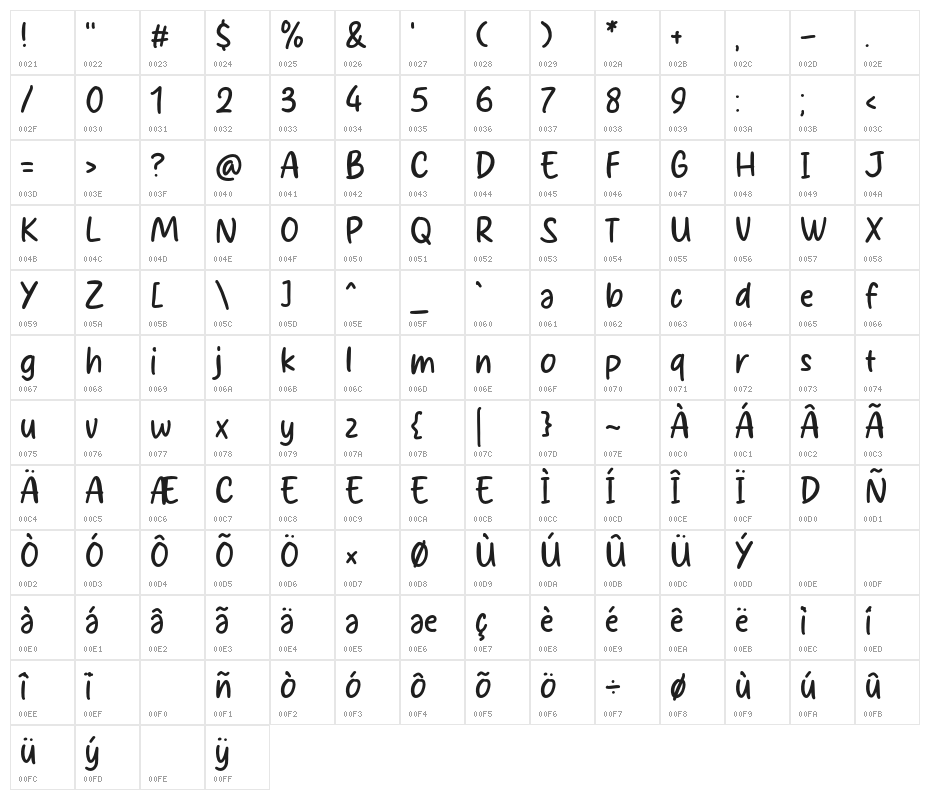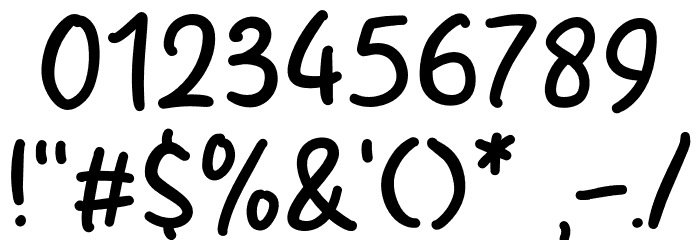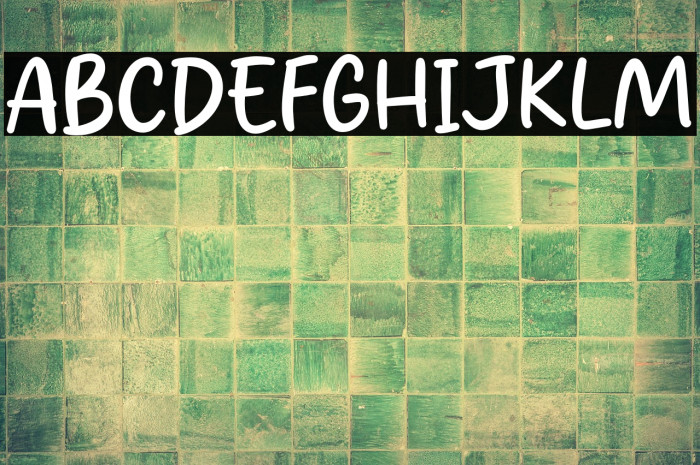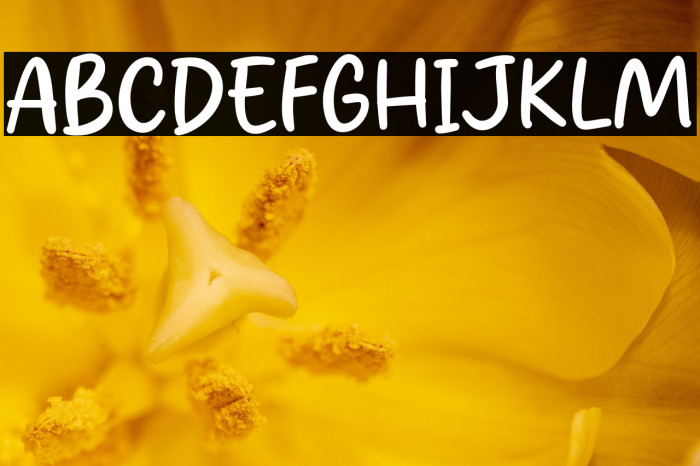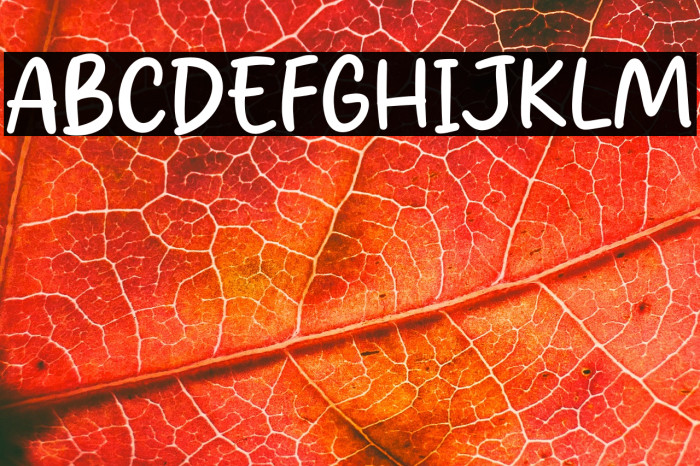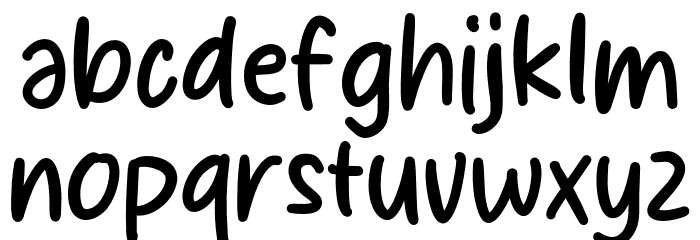
Berry Pearl Font
Berry Pearl Description
This playful and casual font features a handwritten style with smooth, rounded edges, giving it a friendly and approachable appearance. The characters are slightly irregular, adding to the informal and personal feel of the typeface. The uppercase and lowercase letters maintain a consistent flow, while the numerals and special characters complement the overall design with their cohesive style. The font's legibility is enhanced by its clear and distinct letterforms, making it suitable for a variety of creative projects.
| Use Case | Greeting cards, Children's books, Casual branding |
| Proposed Projects | Ideal for greeting cards, children's books, casual branding, and social media graphics. |